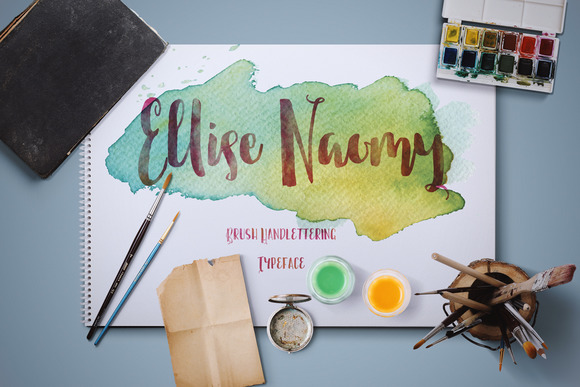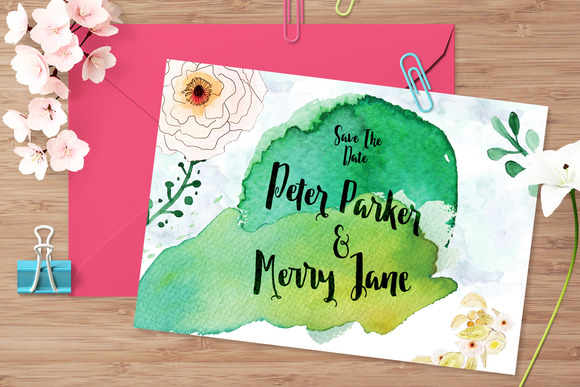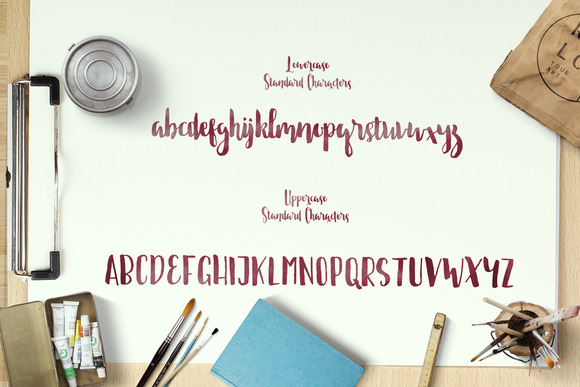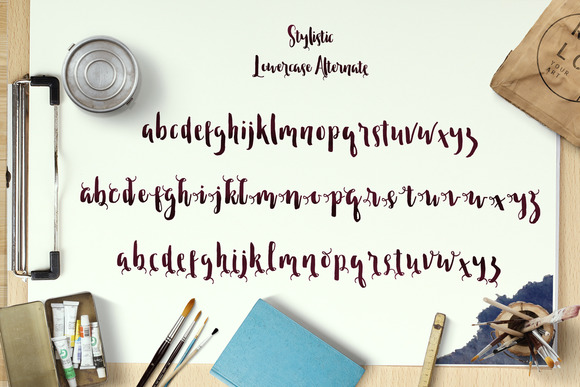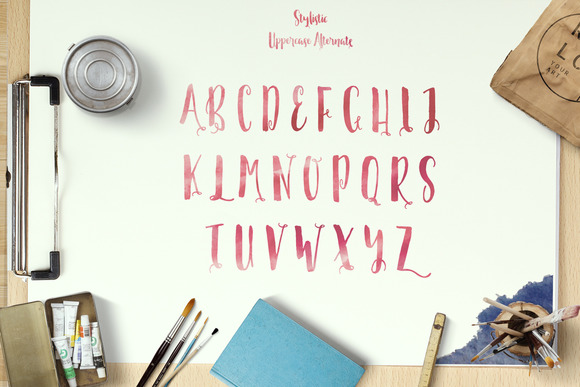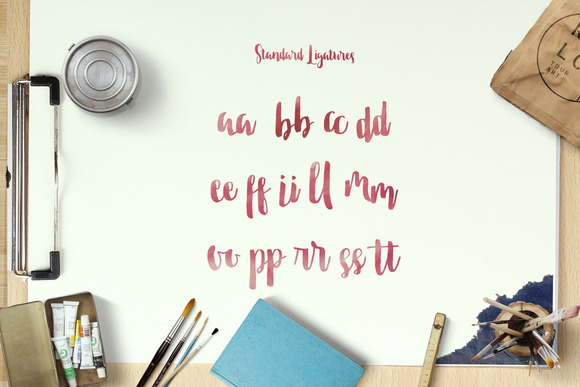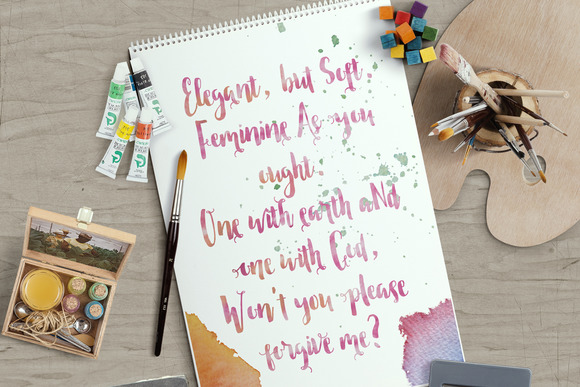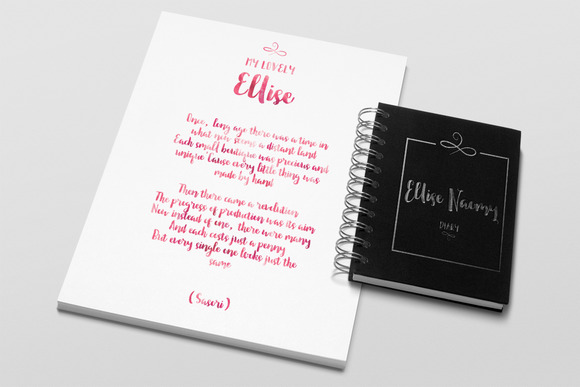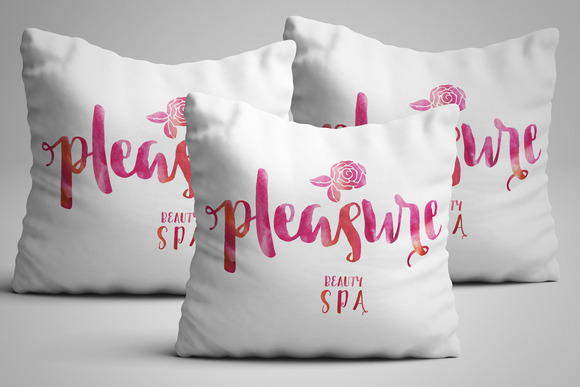
Ellise Naomy Script Font
About Ellise Naomy Script Font
Ellise Naomy is a brush handlettering typeface that comes with stylistic and unique handlettering. Ellise Naomy is created with lovely and brushy characters. This beauty font is PUA encoded.